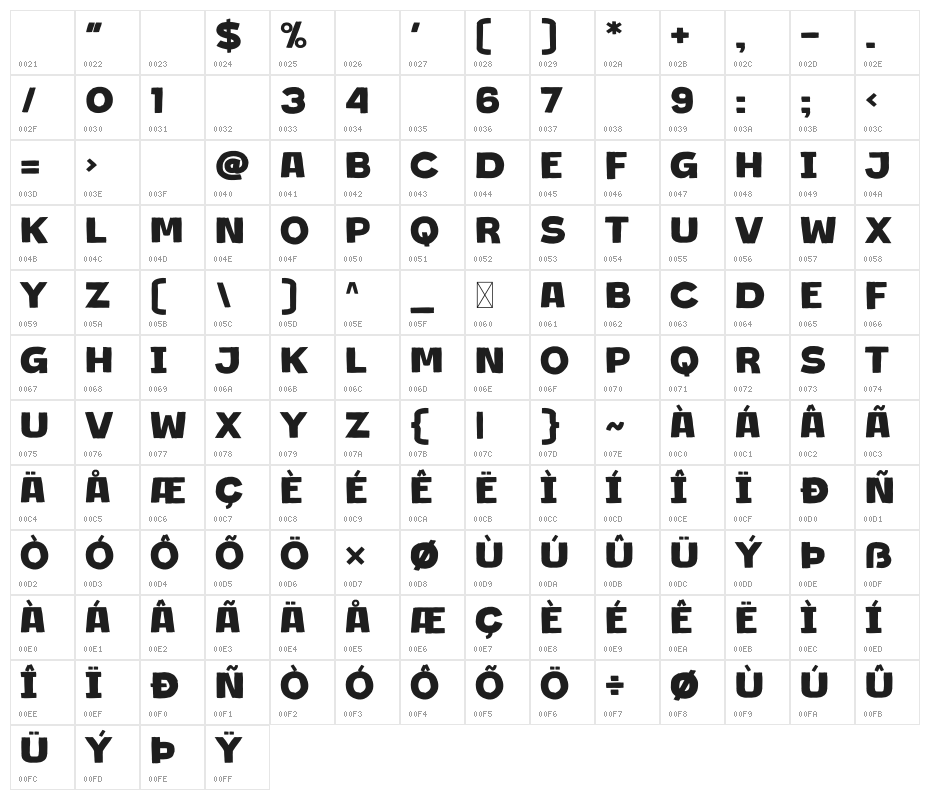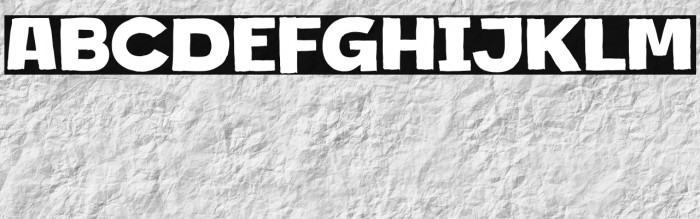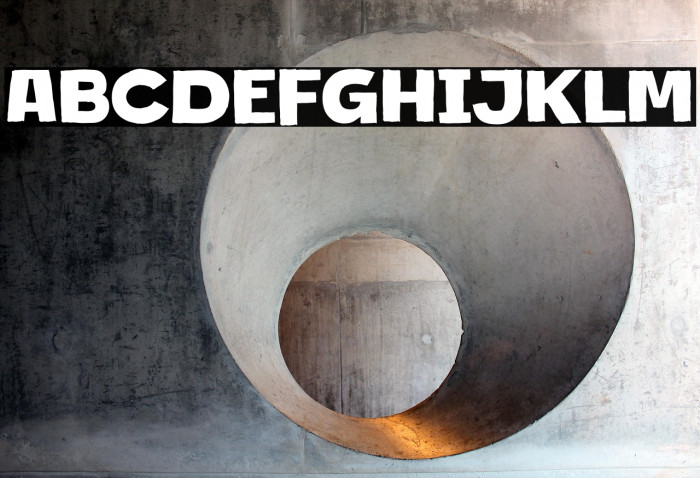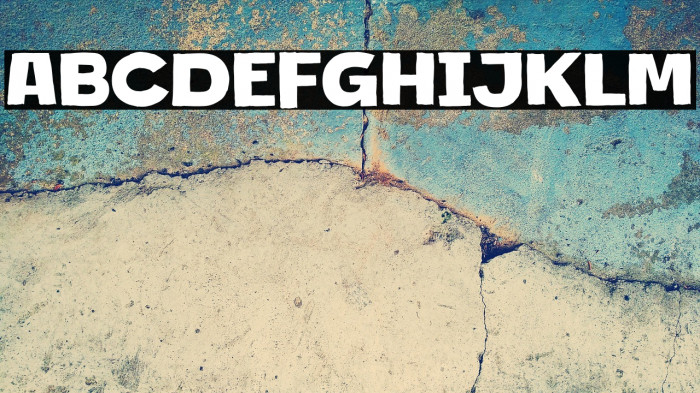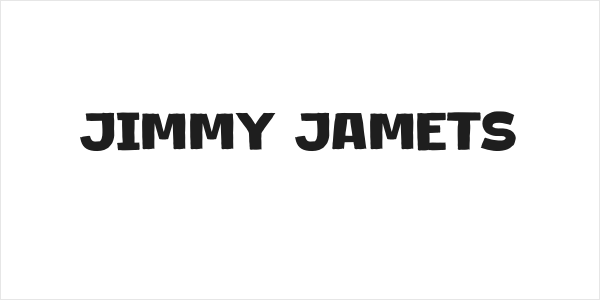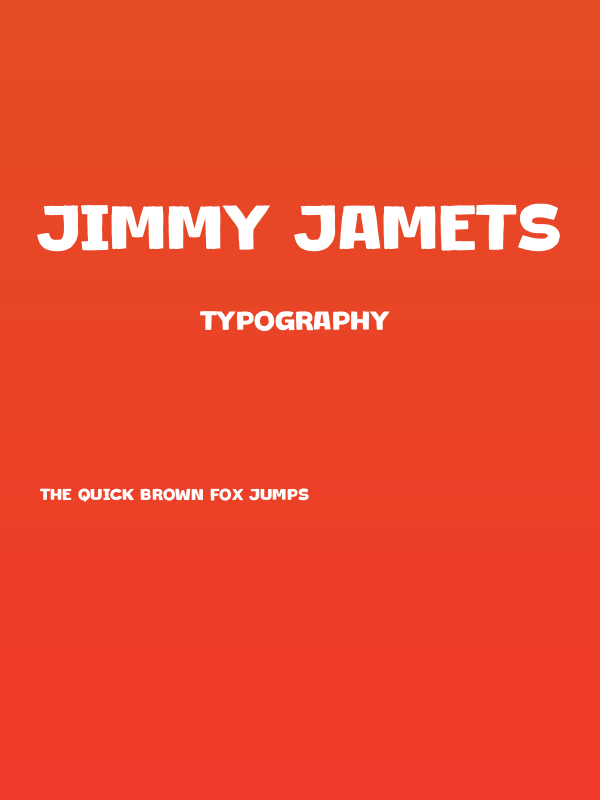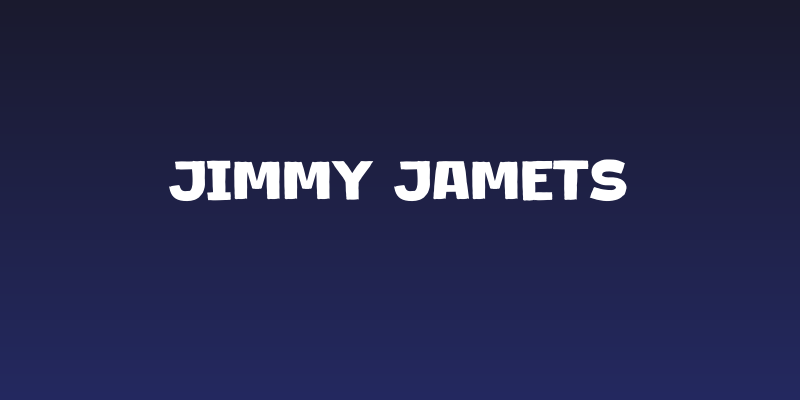
Jimmy Jamets Font
Jimmy Jamets Description
This font features a bold and playful style with a hand-drawn appearance. The characters have a slightly irregular shape, adding a sense of whimsy and creativity. The uppercase letters are robust and impactful, while the lowercase letters maintain a consistent, lively rhythm. Numbers and special characters follow the same bold and dynamic style, making the font versatile for various uses. The overall look is casual yet assertive, perfect for projects that require a fun and engaging visual impact.
Overall StylePlayful, Casual, Creative
Proposed ProjectsIdeal for children's books, playful branding, posters, and creative advertisements.